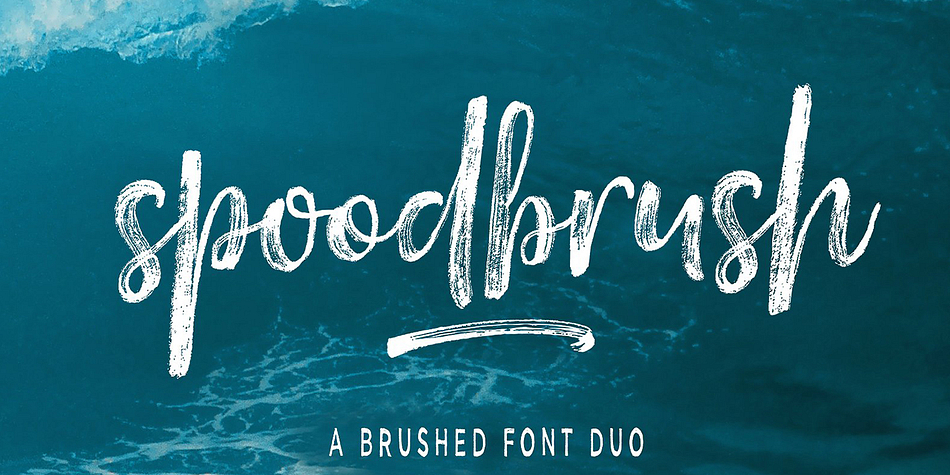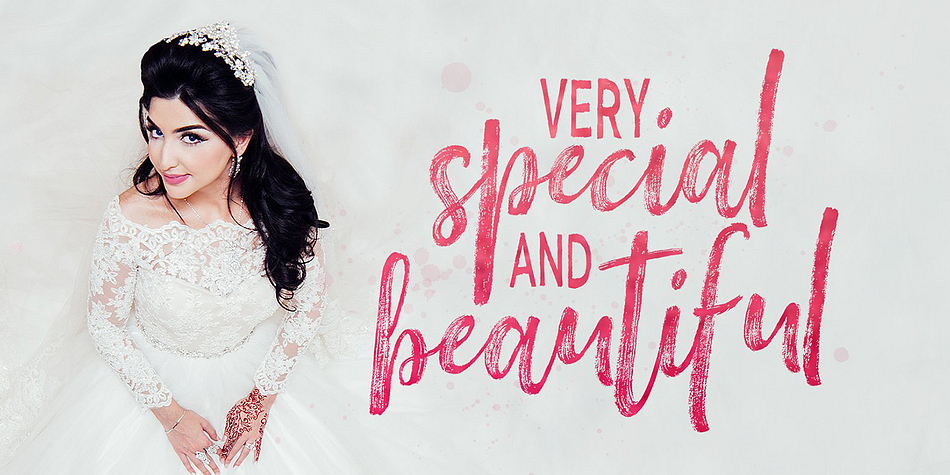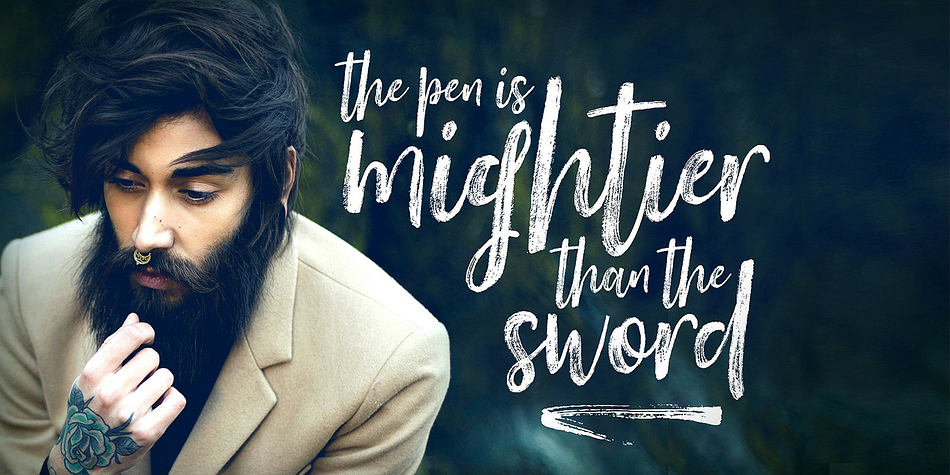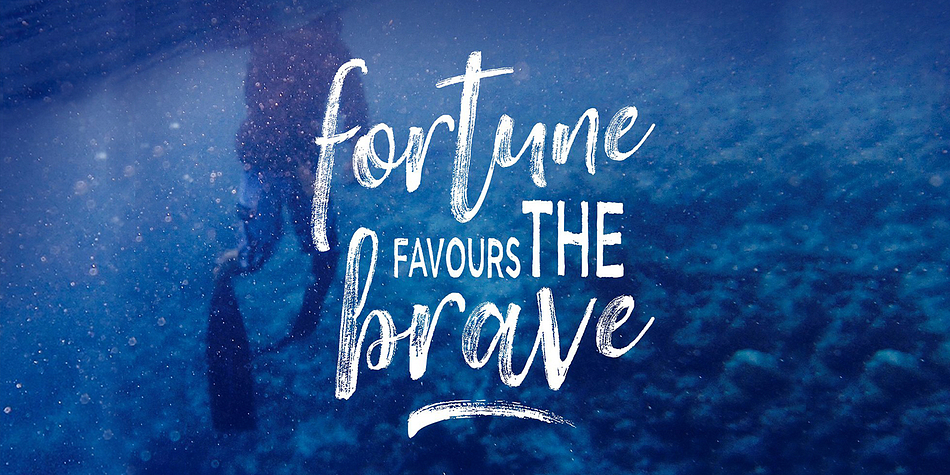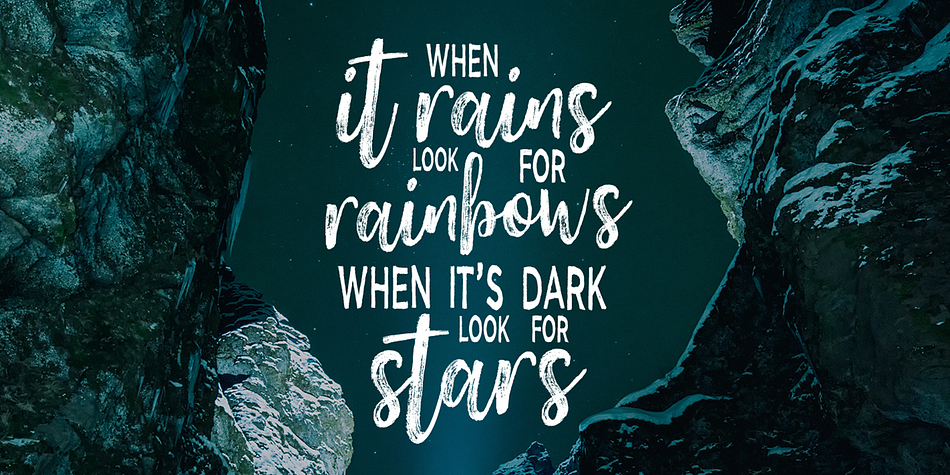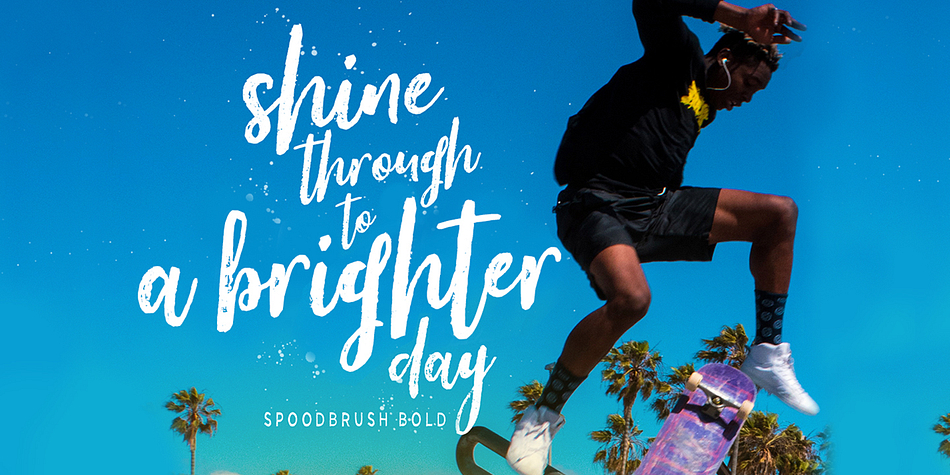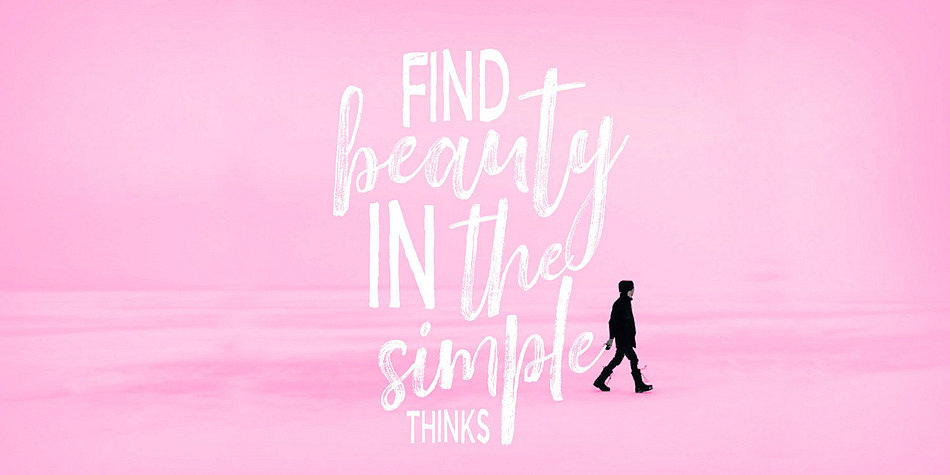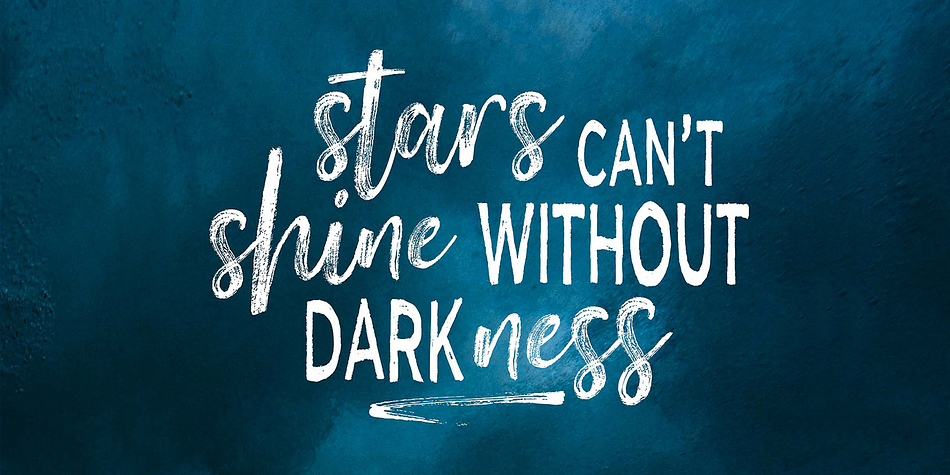
Spoodbrush is a multiple classification font family. This typeface has six styles and was published by Dhan Studio.
Spoodbrush is a brushed textured font with perfect are designed to perfectly combine with one another and allow you to create beautiful typography with a personal touch, also provided some ligatures and swashes extra and with additional sans font.
Perfect for projects brands, logos, product packaging, posters, invitations, greeting cards, news, blogs, everything including personal charm etc.